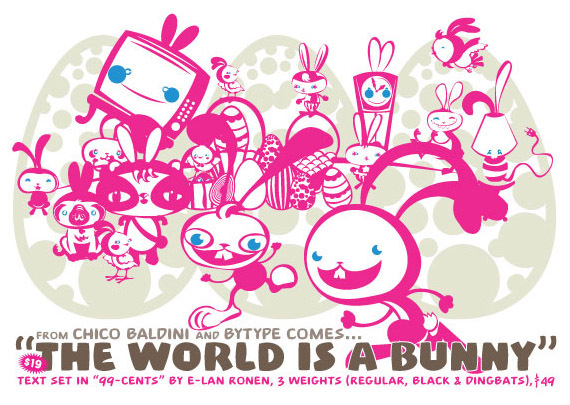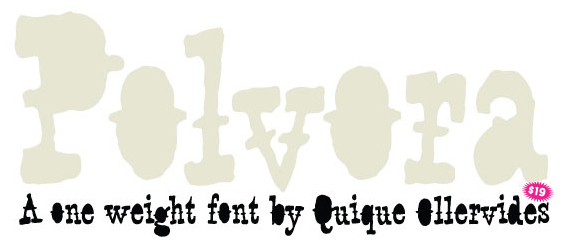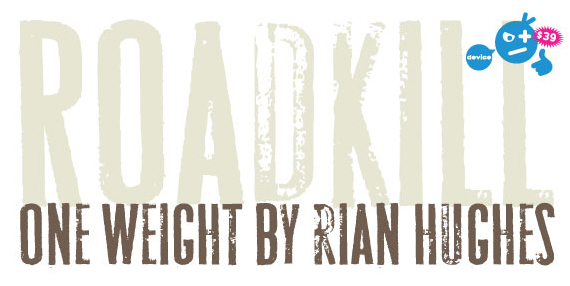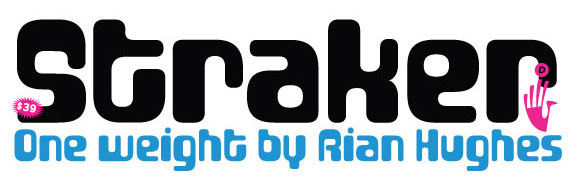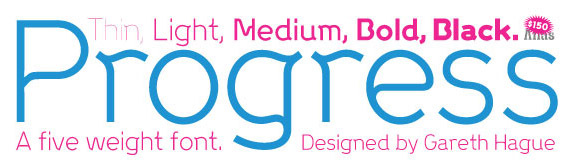
The World is a Bunny comes to us this April by way of ByType. Drawn by Chico Baldini and transformed into a 36 dingbat font by Fabio Luiz Haag. Perfect for Easter. Luciano Vergara offers up the deco-styled RoketU with two weights, Quique Ollervides brings us Polvora, a distressed, square serif, western font, our friends at Alias showcase Progress, a thinly modern font by Gareth Hague with 5 weights, and Rian Hughes from Device finalizes the list with two, one weight fonts, a san-serif, distressed Roadkill, and a casually decorative and technoish Straker.